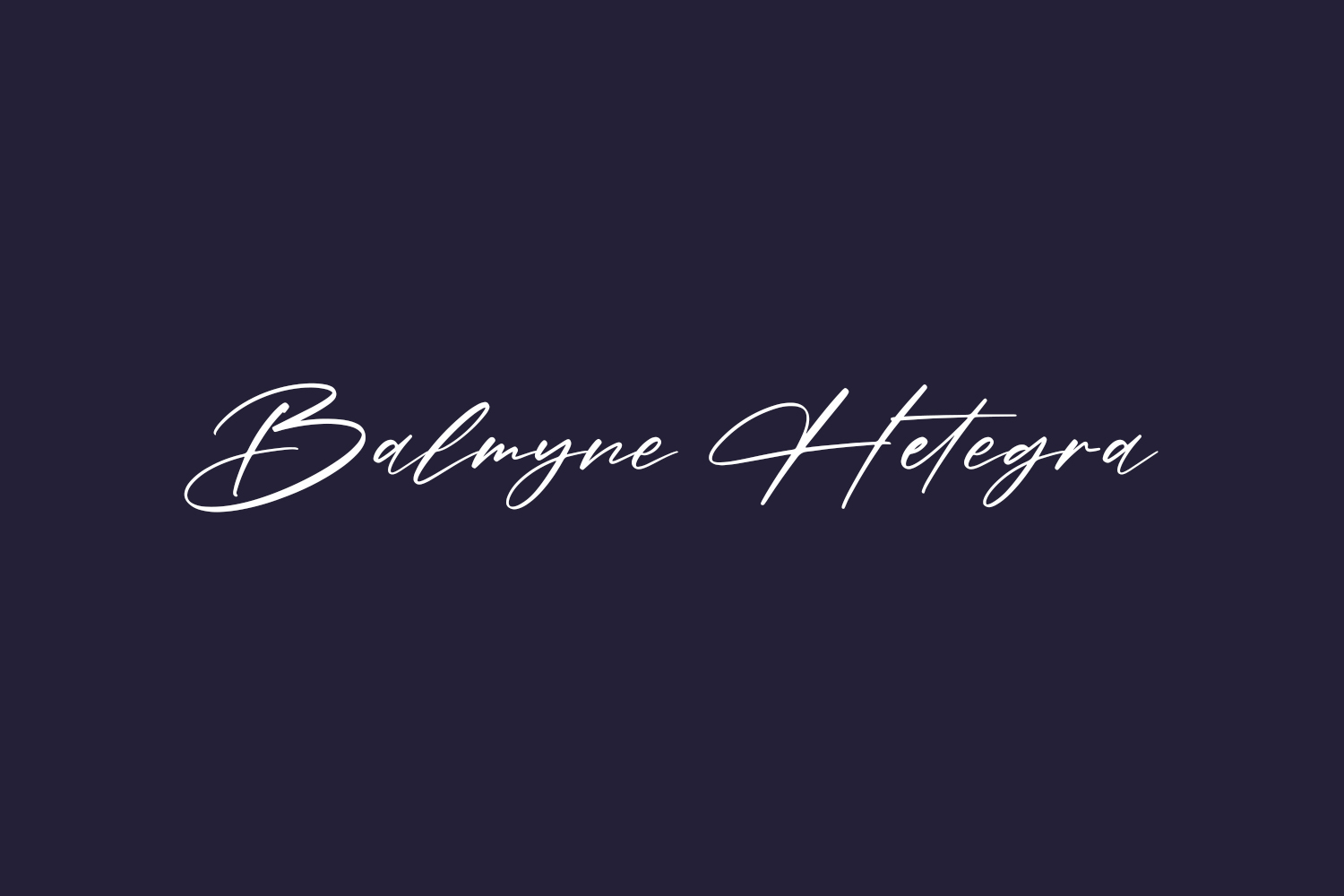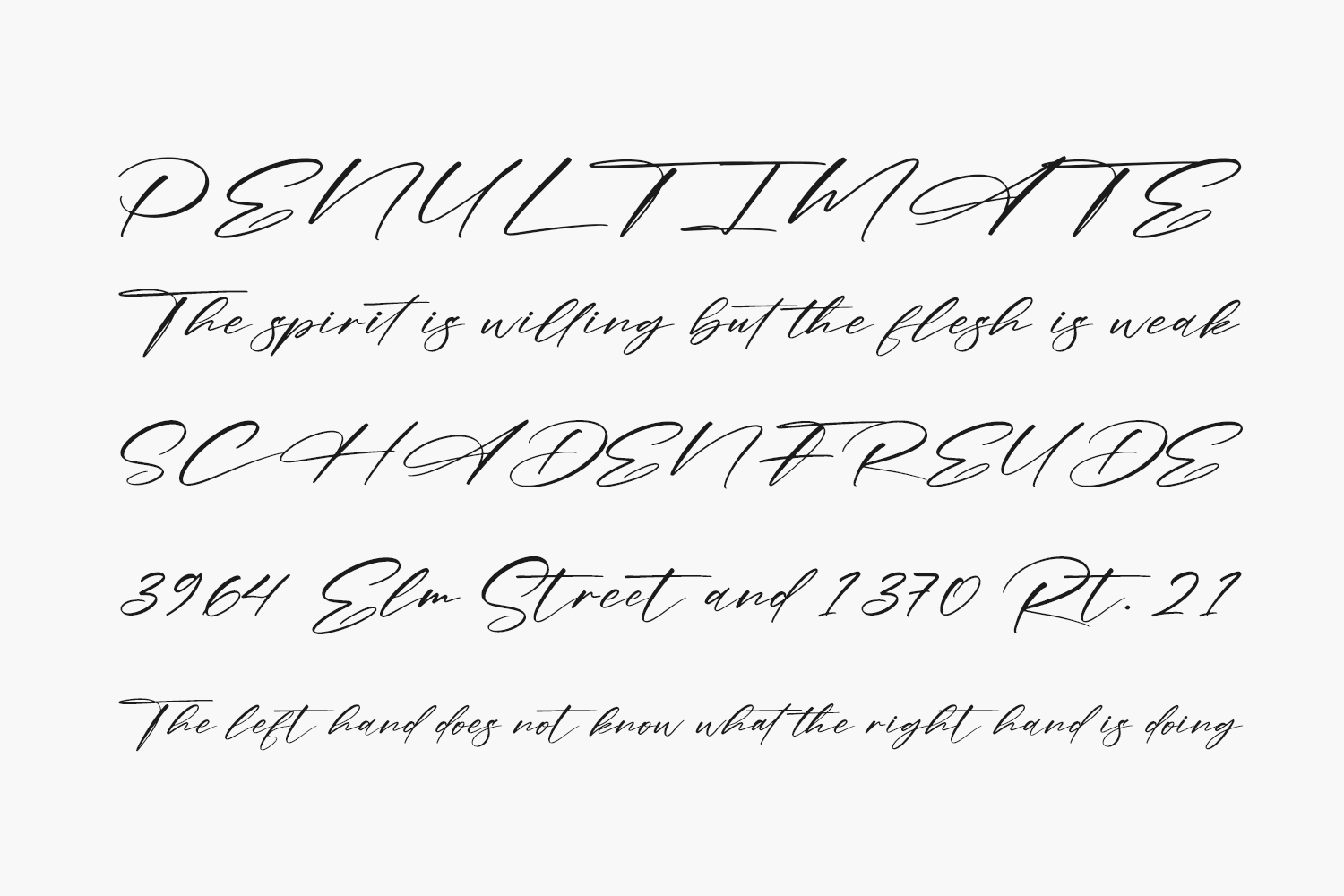
Balmyne Hetegra Free Font embodies elegance and delicacy in its handcrafted design, exuding a distinctive charm and leaving a striking impression. Incorporating this font into your design project will infuse a touch of opulence, elevating its overall appeal. Balmyne Hetegra Free Font is free for personal use only. Please purchase the full version for commercial use.
Designed by Letterena Studios